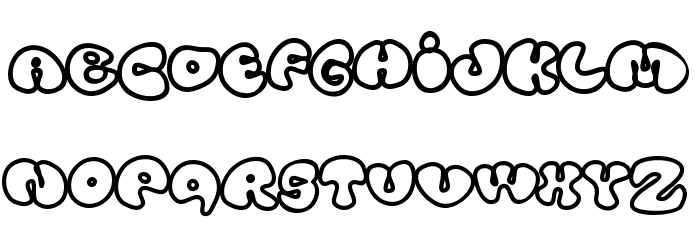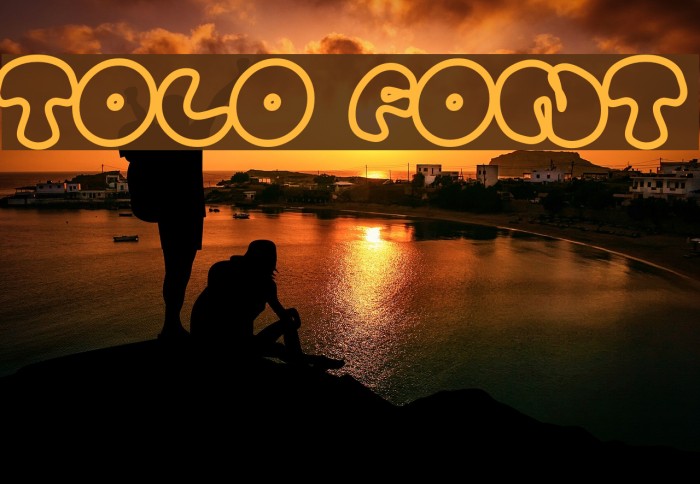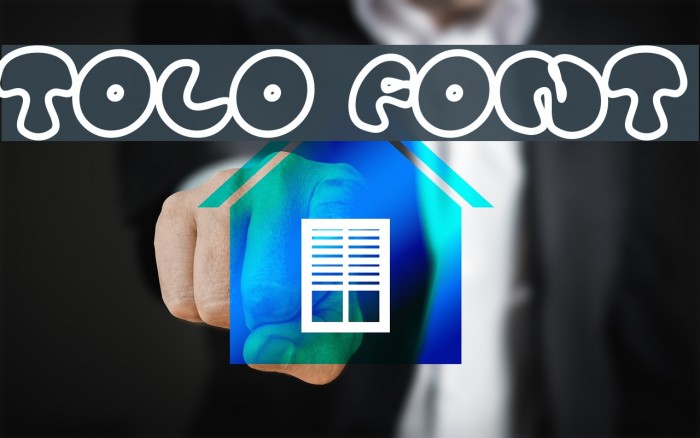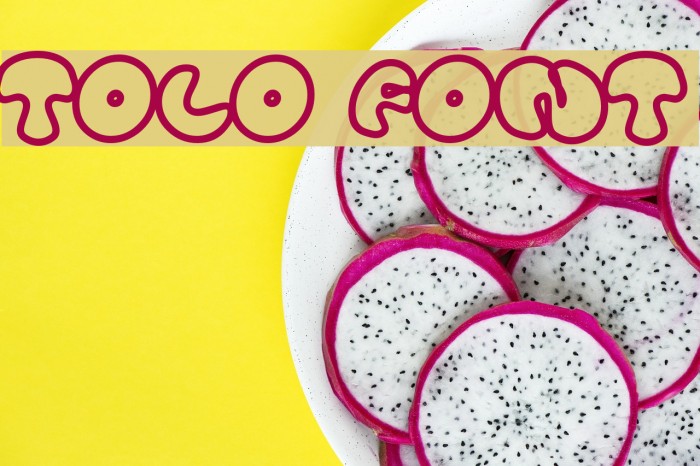
Tolo Font
This playful and bold font features rounded, bubble-like characters that convey a sense of fun and whimsy. The letters are outlined, creating a hollow effect that adds to their playful nature. Each character is distinct, with exaggerated curves and a consistent thickness throughout, giving the font a cohesive look. The uppercase and lowercase letters maintain the same style, with the lowercase being slightly smaller in size. The numbers and special characters follow the same design principles, ensuring uniformity across the font set. This font is perfect for projects that require a lighthearted and approachable feel.
A playful, bubble-like font with outlined characters and a whimsical style.
- Proposed Projects: Ideal for children's books, playful branding, party invitations, and creative posters.
- Overall Style: Playful, Whimsical